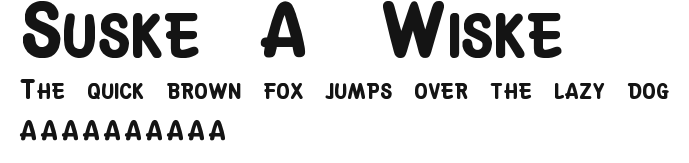
Suske & Wiske Preview
• Font Name: Suske & Wiske
About Suske & Wiske.ttf
Suske & Wiske.ttf is a modern, elegant sans-serif font designed for ultimate readability and visual harmony. Perfect for branding, headlines, web design, and print materials.